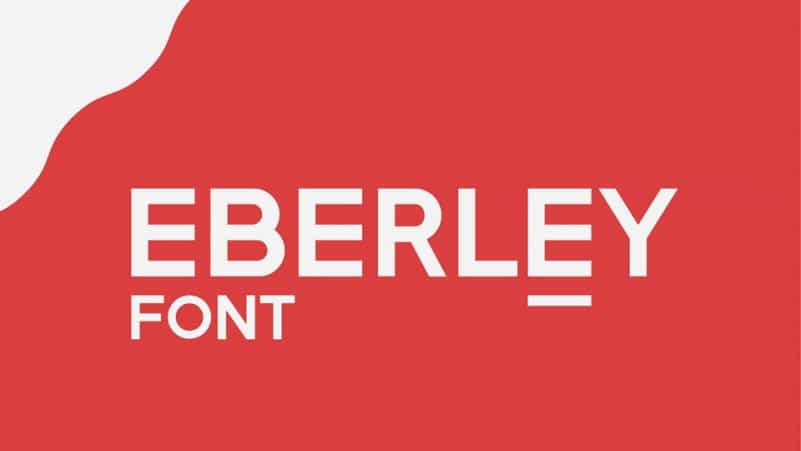
Eberley Sans Serif Font
Eberley Sans Serif Font is a strong modern sans style with feel nice balanced, a free sans serif typeface that is designed for headlines and making a bold statement. It is inspired by classic newspaper and industrial styles. It’s masculine, modern forms make it ideal for a wide variety of projects, including logos, environmental design, and headlines.